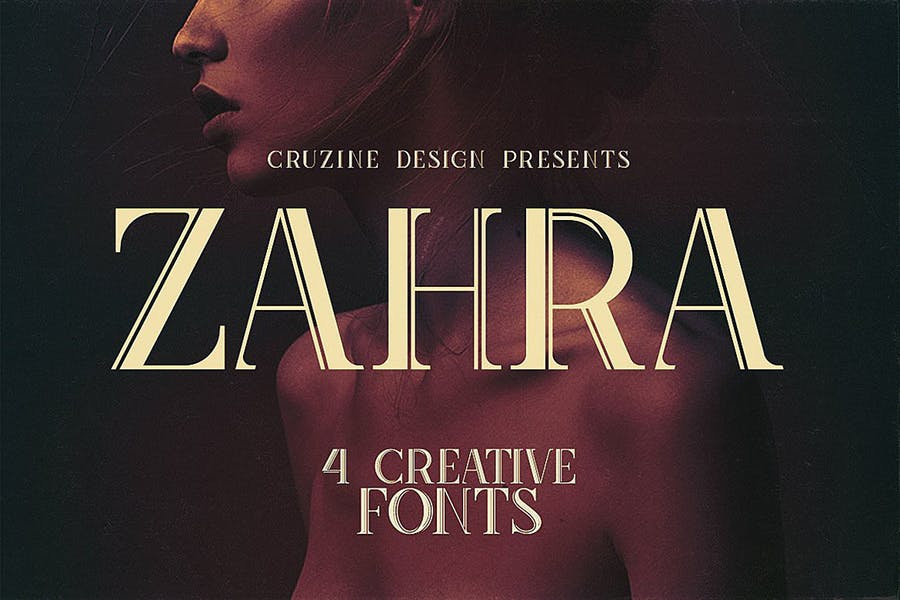
Zahra Typeface Font
This elegant typeface is perfect for feminine branding, beauty product packaging, wedding stationery, fashion magazine layouts, cosmetics advertising, luxury spa materials, jewelry design, and sophisticated lifestyle brand communications.
What makes this font exciting is its graceful combination of flowing curves and delicate structural elements that create an inherently feminine and sophisticated aesthetic. The refined letterforms feature subtle flourishes and organic shapes that evoke elegance and warmth, while maintaining excellent legibility across various applications from large headlines to detailed body text.
The Zahra Typeface Font family includes regular, light, and bold weights, along with script variations and decorative alternates that provide extensive creative possibilities for luxury brand applications and elegant design solutions.
Zahra Typeface Font Free Download offers designers an exceptional tool for creating refined, feminine brand identities that resonate with discerning audiences. This carefully crafted typeface brings sophistication and elegance to contemporary design projects, making it ideal for high-end beauty brands, boutique fashion labels, premium wellness companies, and exclusive lifestyle businesses seeking to establish a graceful, upscale brand presence.
The captivating personality of Zahra Typeface Font emerges through its harmonious balance of strength and delicacy. Each character displays thoughtful proportions and gentle curves that create visual warmth while maintaining professional credibility. This exceptional design approach makes it particularly effective for luxury hotels, premium skincare lines, elegant jewelry collections, and exclusive wedding planners requiring typography that communicates both sophistication and approachability.
Creative professionals will appreciate this font's versatility in establishing emotional connections with target audiences. From perfume advertisements to boutique signage, from luxury packaging to editorial spreads, Zahra Typeface Font maintains its elegant character while adapting to diverse design requirements. The font's comprehensive character set includes stylistic alternates, ligatures, and decorative elements that enhance creative flexibility, ensuring designers can achieve the perfect balance of refinement and personality for sophisticated brand communications across all media platforms.